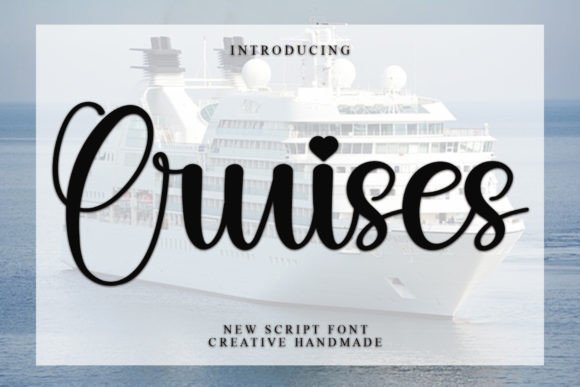
Looking for a font that speaks volumes about your business proposals? Look no further than Cruises Font, the latest addition to our script font family. Created by FreshTypeINK, this gorgeous and bold handwritten font is perfect for adding tons of nostalgic character to your designs.
Cruises Font reads as confident and dynamic, and it's sure to catch the eye of anyone who comes across it. With its sleek and modern style, this font is the perfect choice for businesses looking to make a strong statement in their proposals.
Whether you're creating a pitch deck, a presentation, or a report, Cruises Font will give your content the added edge it needs to stand out from the crowd. And with its rich character and expressive style, this font is sure to leave a lasting impression on your audience.